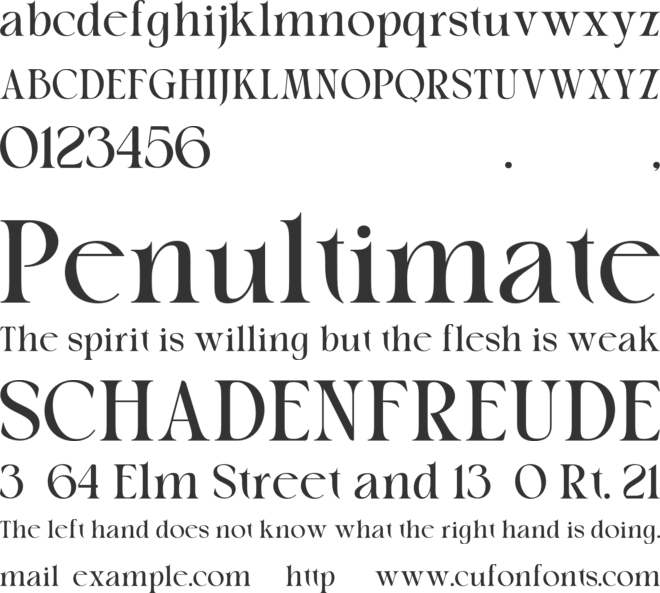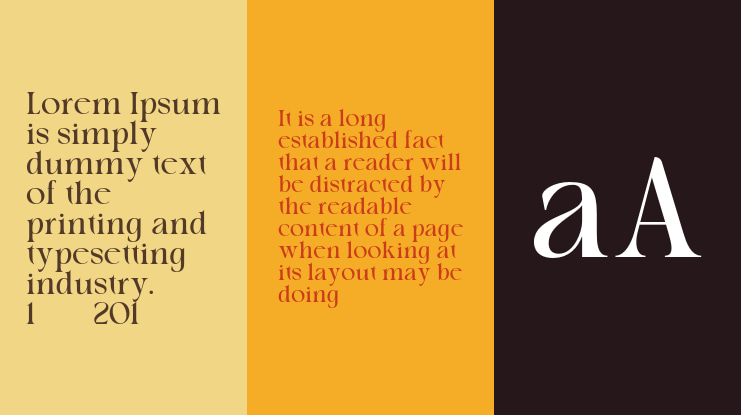
Sahron Font
Sahron is an elegant serif font with a distinctive inline detail that adds character and sophistication. Designed to feel modern yet timeless, Sahron brings a refined look while staying bold and expressive.
Burntilldead - Illustrator & Type Foundry